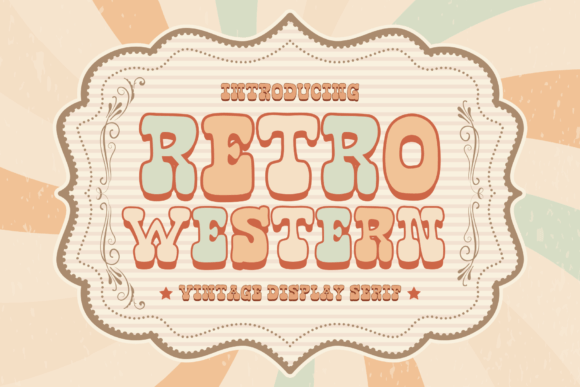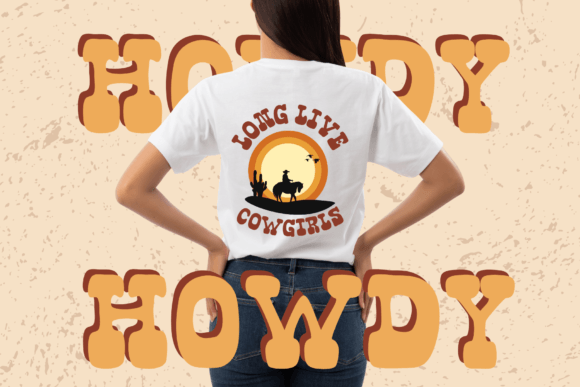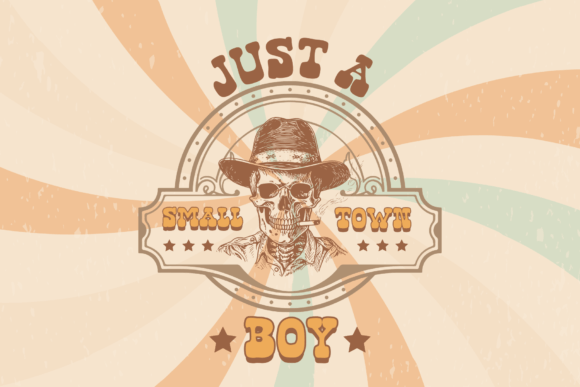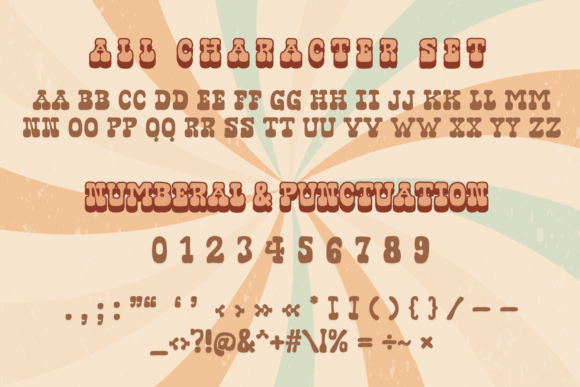
Retro Western Font
About the Retro Western Font
Introducing the Retro Western Font, a beautifully crafted typeface designed to elevate your creative projects. Retro Western is a Western display serif font. It embodies playfulness and authenticity and is the perfect choice for all your favorite projects, including blog posts, logos, branding, ads, invitations, greeting cards, planners, photo albums, decorations, and more. Add it to any of your designs, and enjoy the results!
Retro Western’s playful yet authentic character shines brightest in headlines, posters, and short-form branding elements. Its strong serifs and slightly condensed letterforms make it ideal for eye-catching titles and logos, particularly for projects with a vintage or Western theme. Avoid using it for body text or long paragraphs; its display nature makes it less legible at smaller sizes.
Pairing Retro Western effectively depends on the desired mood. For a bolder, more rugged feel, consider pairing it with a geometric sans-serif like Bebas Neue. For a softer, more vintage aesthetic, a classic serif like Garamond or a slightly playful script like Pacifico could work well.
The font’s overall personality is bold and friendly, lending itself to projects that evoke a sense of adventure, nostalgia, or handcrafted quality. Brands in the food, beverage, tourism, or entertainment industries might find it particularly suitable.
Retro Western Font Usage Examples
Retro Western Font Example